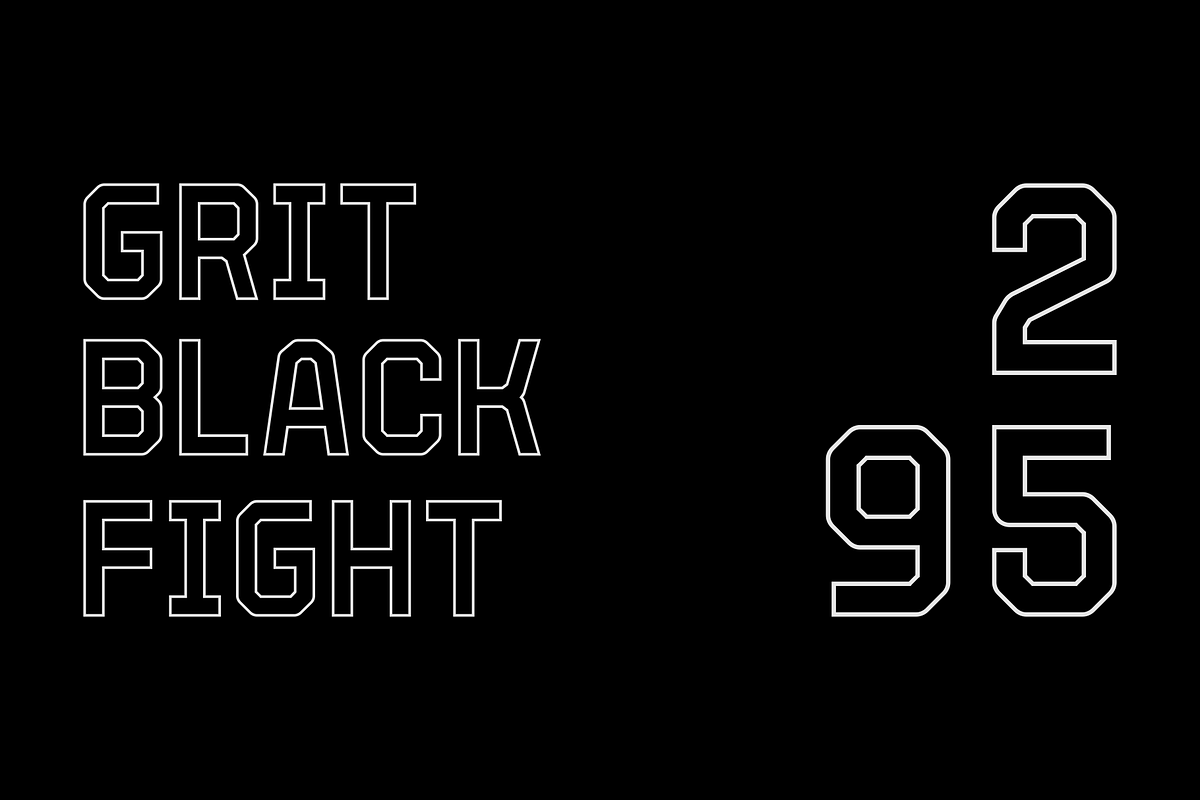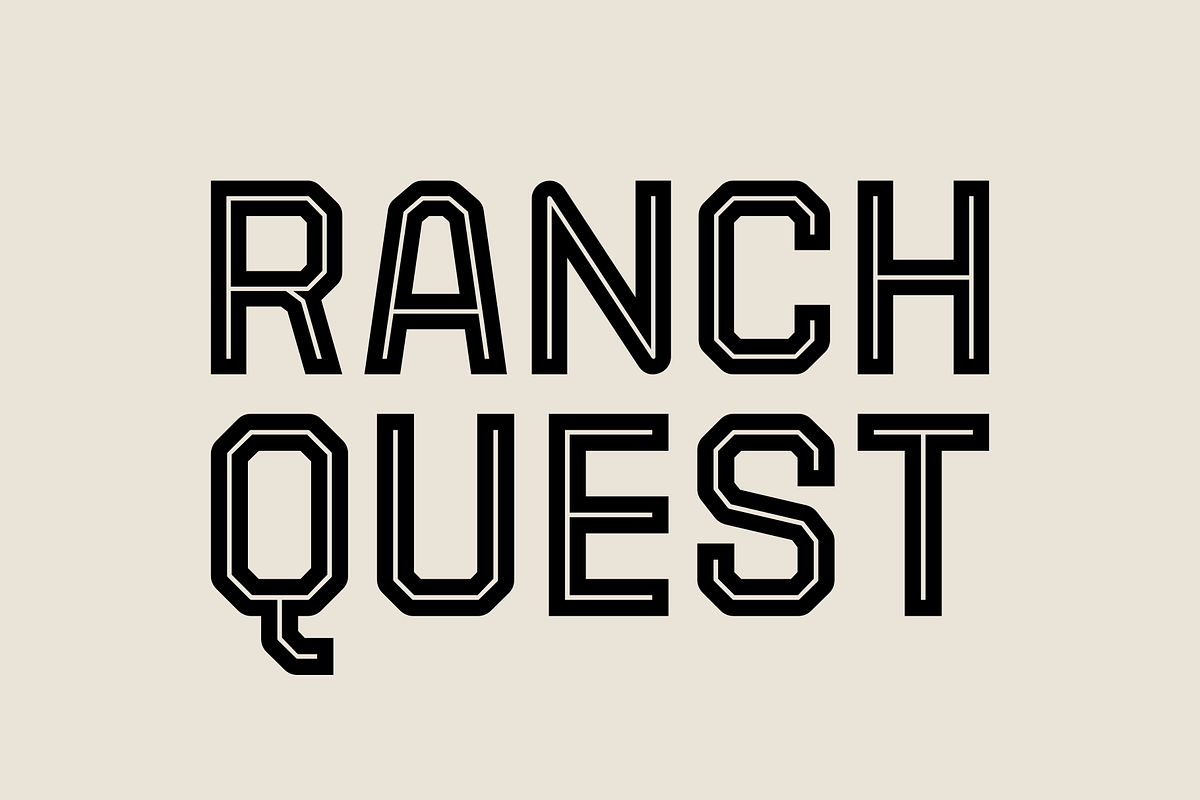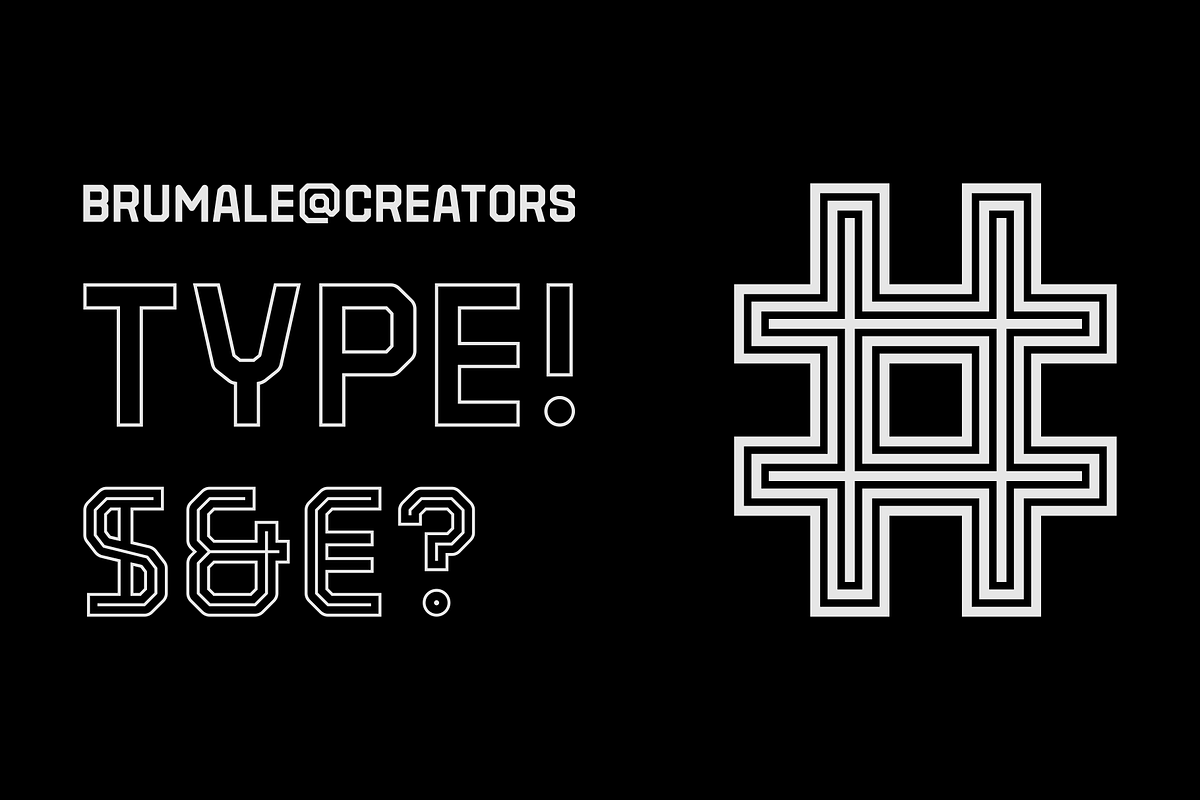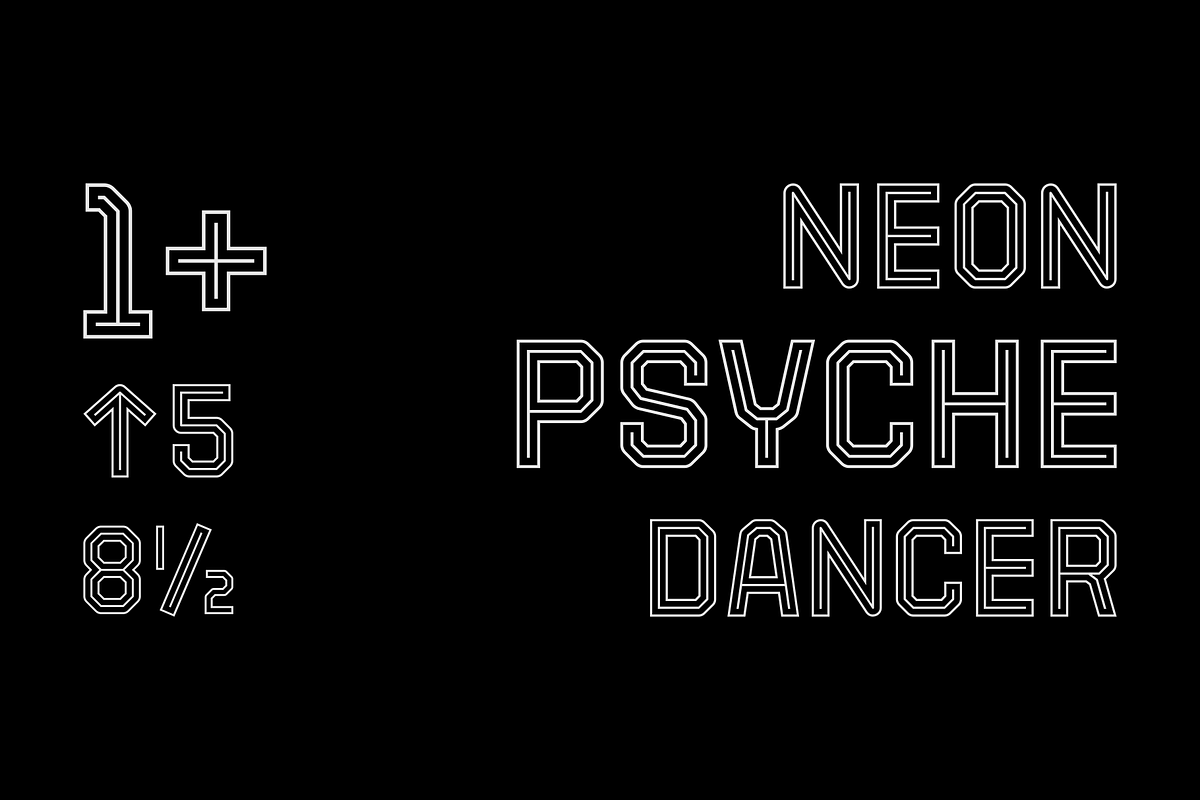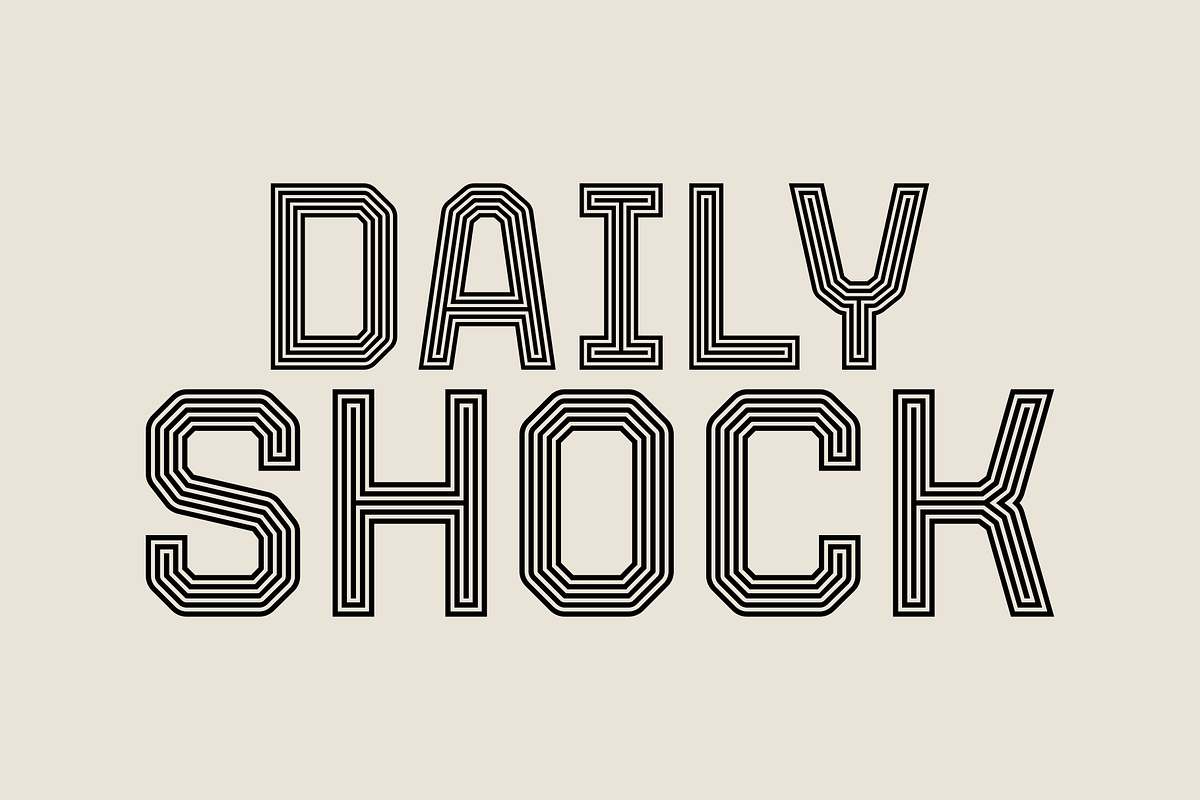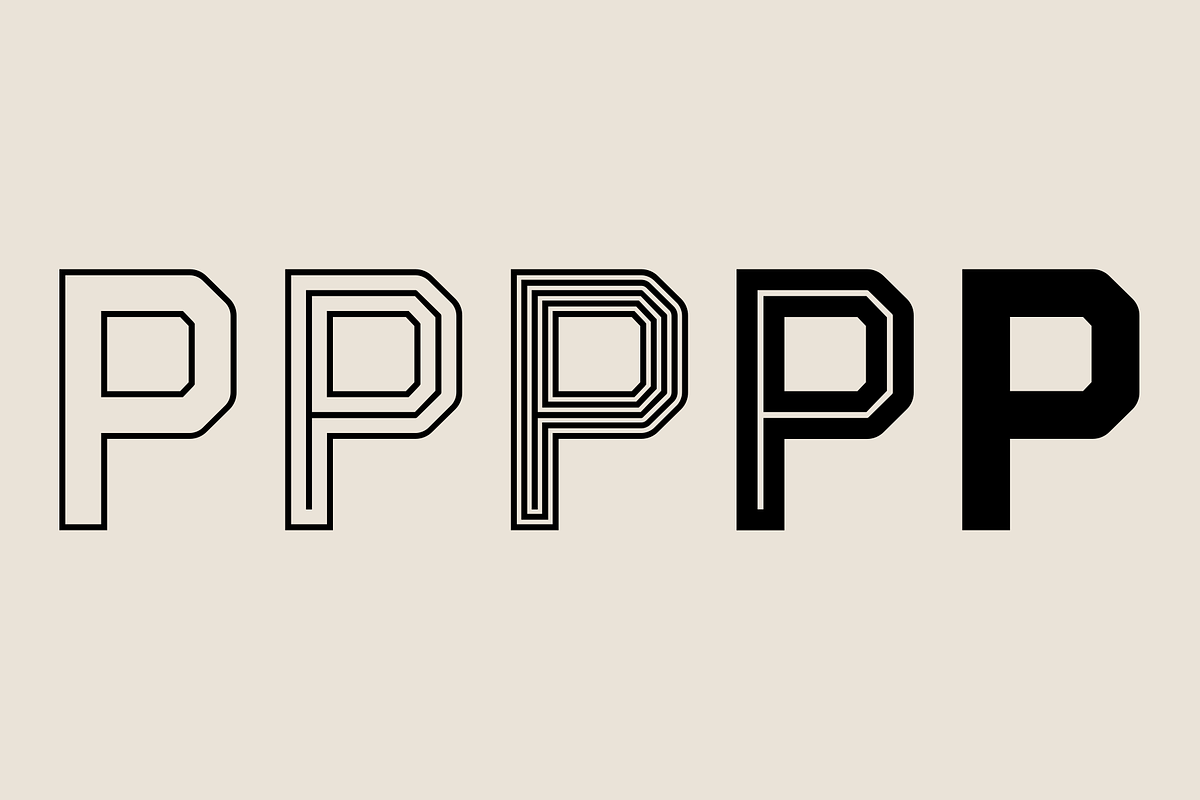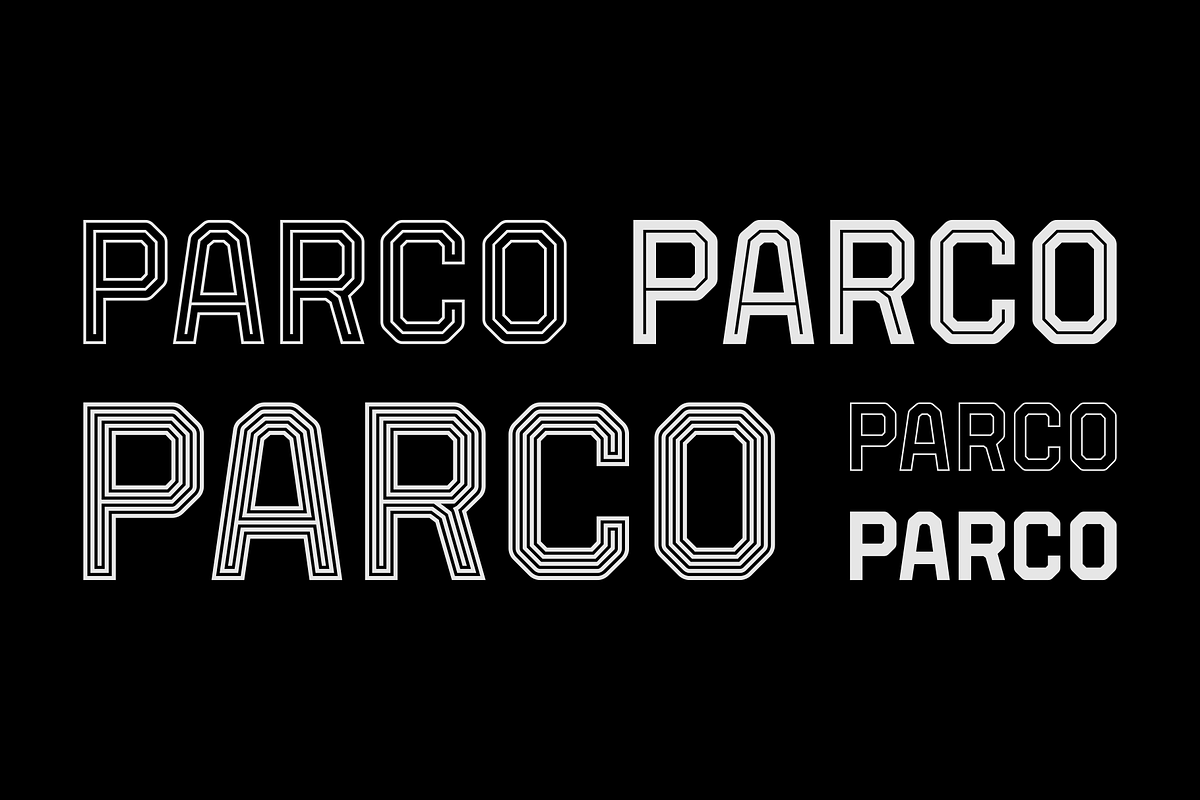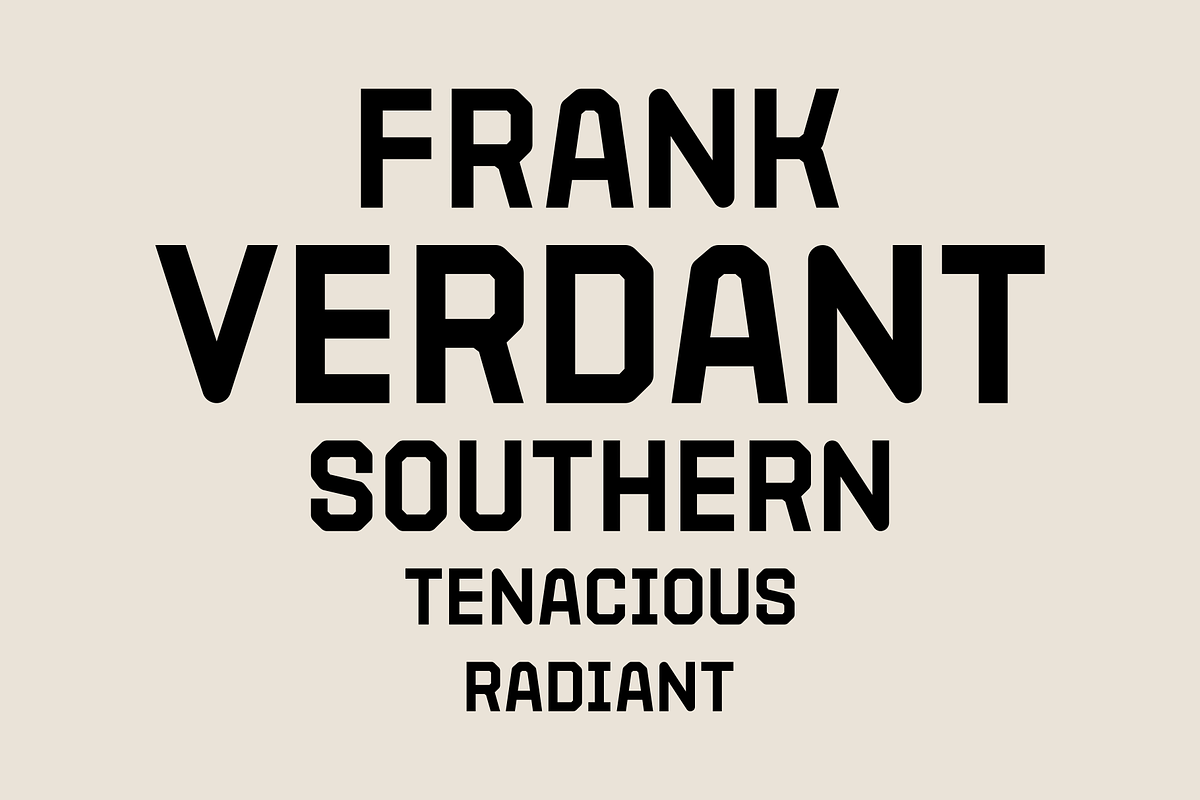
Parco - Font Family
Parco is a font family inspired by the laconic way of living.
- Parco Regular
- Parco Italic
- Parco Double Outline Inline
- Parco Inline
- Parco Outline
- Parco Outline Inline
- Parco Double Outline Inline Italic
- Parco Inline Italic
- Parco Outline Inline Italic
- Parco Outline Italic